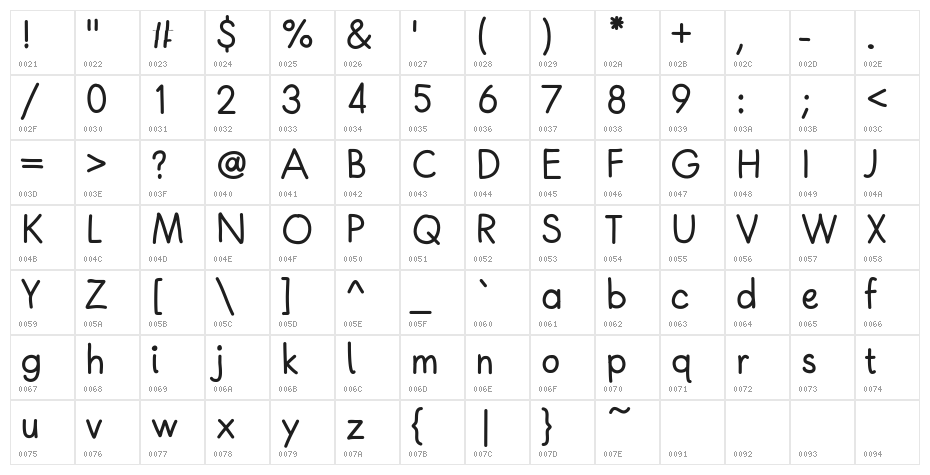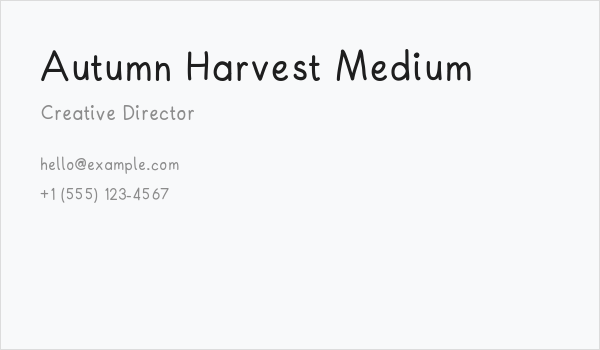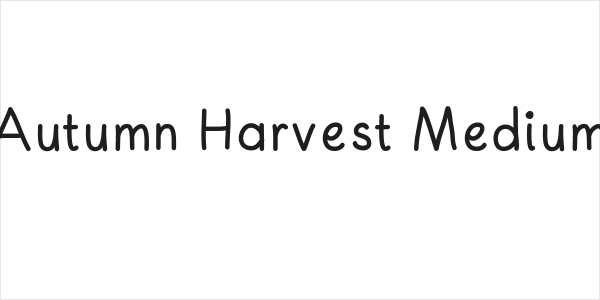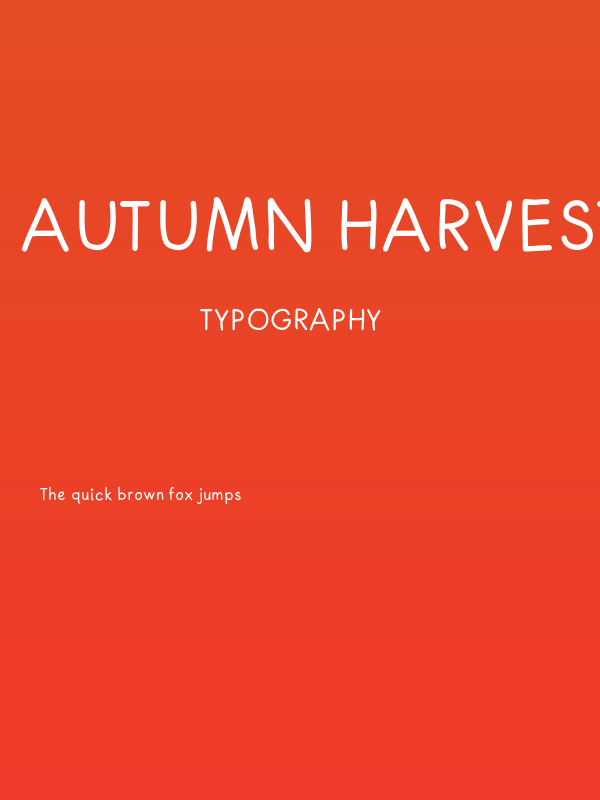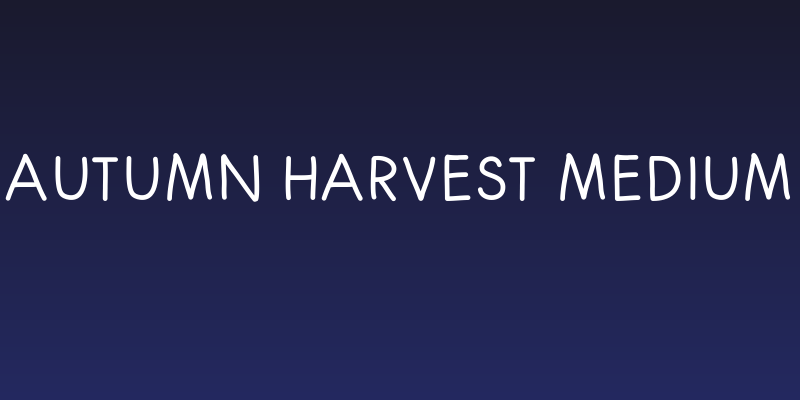
Autumn Harvest Medium Font
Autumn Harvest Medium Description
This font features a playful and rounded style, characterized by its smooth curves and friendly appearance. The letters are evenly spaced, with a consistent stroke width that gives it a clean and approachable look. The uppercase and lowercase letters maintain a uniform height, contributing to its readability. The numerals and special characters are designed to match the overall aesthetic, making it versatile for various uses. Its simplicity and charm make it suitable for projects that require a casual and inviting tone.
| Proposed Projects | Ideal for children's books, greeting cards, playful branding, and casual invitations. |